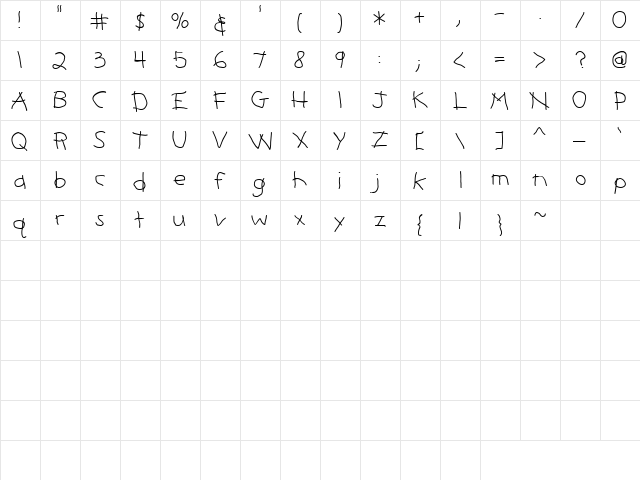
CK Child's Play Regular
Design Context for CK Child's Play Typeface
CK Child's Play has an approachable, lighthearted character — its loose, expressive forms are well-suited to children's content, casual branding, and fun-first design.
Font Pairing: Pairs well with a rounded or humanist sans for body copy, maintaining the friendly tone without relying on CK Child's Play to carry extended reading.
Pro Tip: Use CK Child's Play at larger display sizes where its expressive character can land. Pair with a clean, simple sans for body copy to maintain readability.